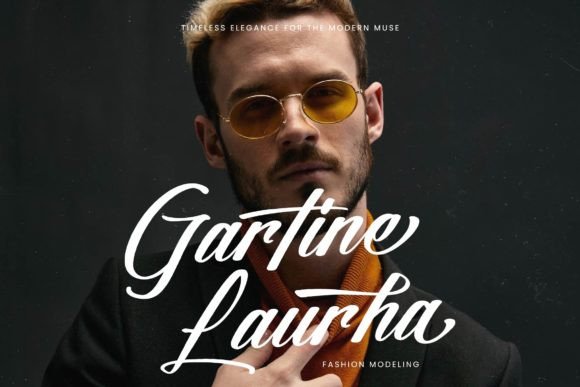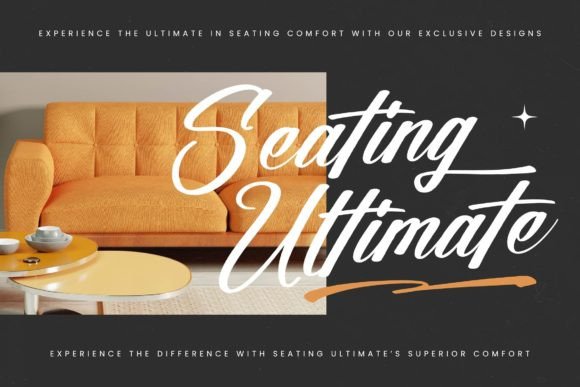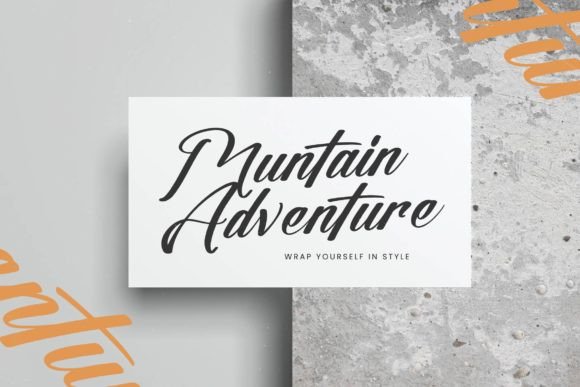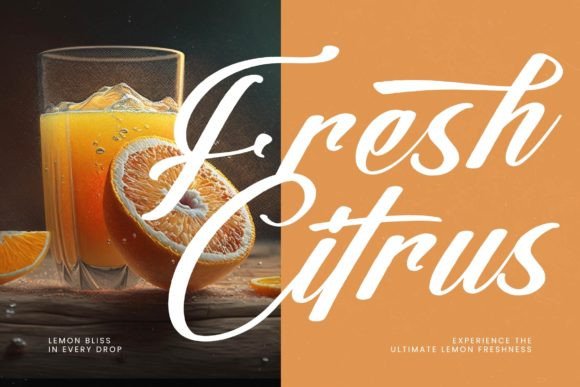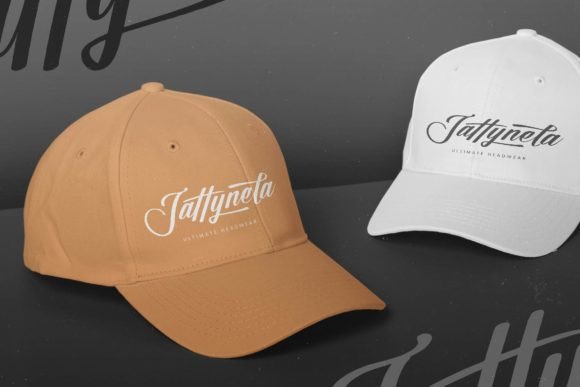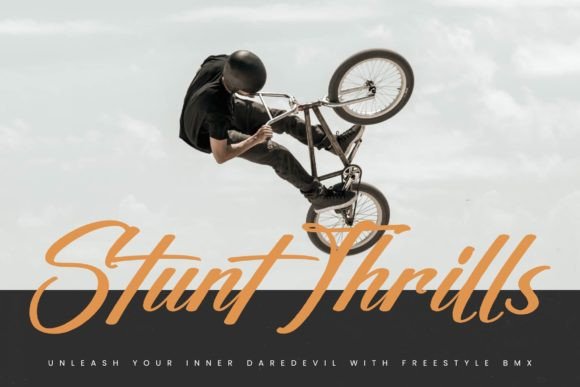
Introducing Artemis Gothical: The Epitome of Luxury Script Fonts
In the realm of typography, few fonts manage to convey the essence of luxury and sophistication as effectively as Artemis Gothical. This modern script calligraphy font, crafted by the talented team at Letterena, has emerged as a game-changer for designers and crafters seeking to infuse their projects with a touch of elegance and refinement. Artemis Gothical is not just a font; it’s an experience, a statement piece that elevates any design to new heights of aesthetic appeal.
What Makes Artemis Gothical Stand Out?
Artemis Gothical is a luxury script font that boasts a unique blend of modernity and classic calligraphy. Its fluid strokes, intricate details, and graceful flow make it an ideal choice for projects that demand a high level of sophistication. Whether you’re working on logos, branding projects, homeware designs, product packaging, or any other venture that requires a dash of luxury, Artemis Gothical proves to be a versatile and invaluable asset.
One of the key advantages of Artemis Gothical is its incredible versatility. This font is suitable for a wide array of applications, including:
- Logos and branding projects: Create a lasting impression with a logo that exudes luxury and class.
- Homeware designs: Add a touch of elegance to your home decor with fonts that speak of sophistication.
- Product packaging: Make your products stand out on the shelves with packaging that looks premium.
- Mugs, quotes, posters, shopping bags, t-shirts, and more: Extend your brand’s reach and aesthetic to various merchandise.
- Book covers, name cards, invitation cards, greeting cards: Give your publications and cards a luxurious feel.
- Labels and photography: Enhance your visuals and watermarks with a touch of class.
- Special events: Make your event memorable with invitations and decor that feature elegant typography.
Why Choose Artemis Gothical?
Choosing Artemis Gothical for your design projects comes with numerous benefits:
- Elegance and Sophistication: The font’s design elements ensure that your projects look luxurious and high-end.
- Readability: Despite its intricate design, Artemis Gothical maintains a high level of readability, making it perfect for both headings and body text.
- Uniqueness: Stand out from the crowd with a font that is both unique and memorable.
Tips for Using Artemis Gothical Effectively
To maximize the impact of Artemis Gothical in your designs, consider the following tips:
- Pair it with Simplicity: Balance the luxury of the font with simpler design elements to avoid overwhelming the viewer.
- Experiment with Colors: While the font itself is a statement, experimenting with different colors can further enhance its beauty.
- Consider the Medium: Keep in mind the final medium of your design; what works well on a large billboard may need adjustments for a smaller business card.
Artemis Gothical by Letterena is more than just a font; it’s a design statement that can transform your projects with its luxury and modern script calligraphy. Its versatility, elegance, and readability make it a must-have for designers and crafters aiming to create visually stunning and sophisticated works. Whether you’re embarking on a branding project, designing homeware, or crafting special event invitations, Artemis Gothical is poised to elevate your designs to new heights of aesthetic excellence.
In a world where design plays a crucial role in communication and brand identity, having the right typography at your disposal can make all the difference. Artemis Gothical is not just a font; it’s a key to unlocking a world of luxury and elegance in your designs. So, dive into the world of premium typography with Artemis Gothical and discover the transformative power of luxury script fonts in your creative projects.